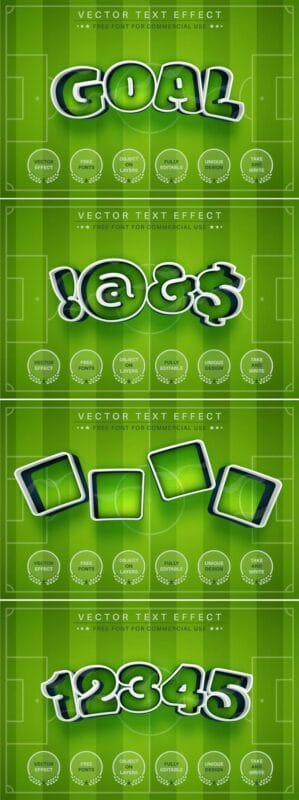
Sport Football Editable Text Effect Font Style
Screenshot Images of Sport Football Editable Text Effect Fonts Style:
Sport Football Editable Text Effect Font Style